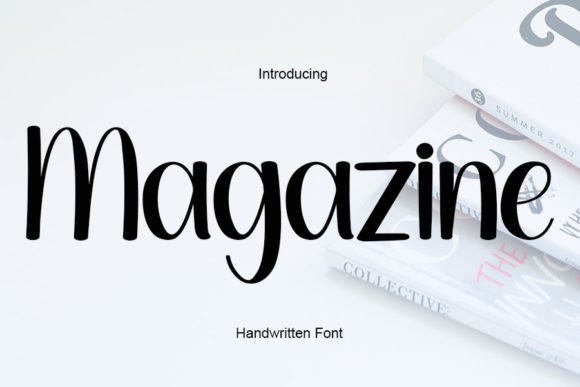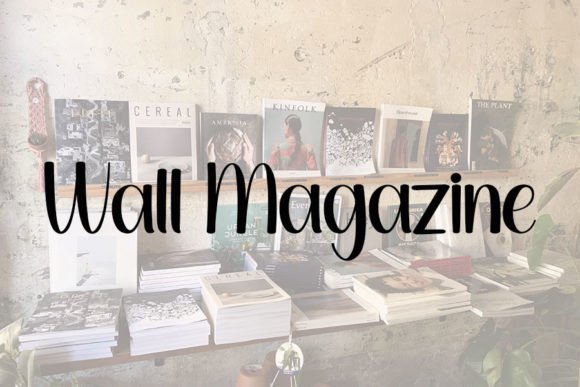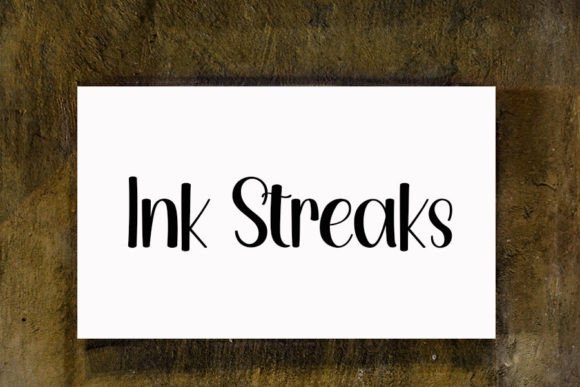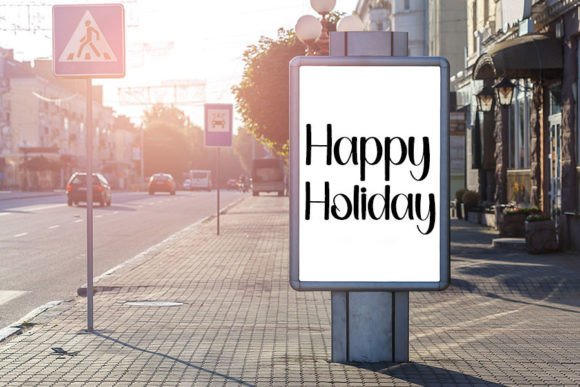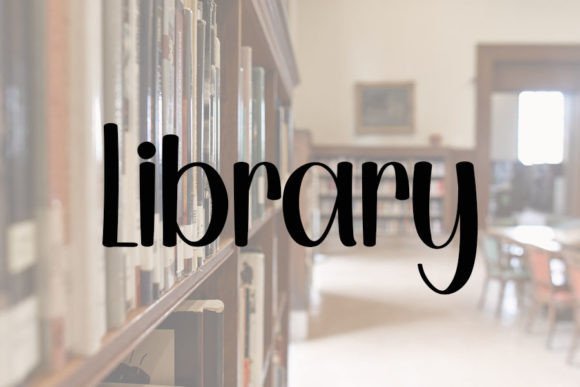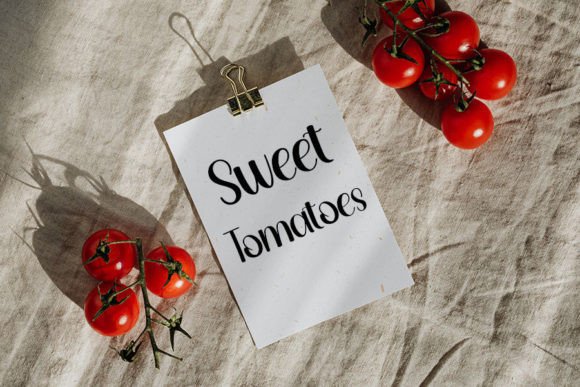
Magazine Font
About Magazine Font
Magazine font is a neat and elegant handwritten typeface crafted to bring a refined and timeless quality to your creative work. Its distinct style blends classic charm with a modern handwritten feel, making it perfect for a wide range of design projects. Whether you are designing logos, invitations, branding materials, or personal crafts, Magazine font offers the sophistication and clarity you need to make your work stand out.
Elegant and Distinct Style
This font features beautifully balanced letterforms that convey elegance without being overly formal. The natural flow of its handwritten strokes adds a personal touch, while the neat structure ensures readability. Its distinct style allows it to adapt easily to both casual and professional designs, adding a timeless flair to any project.
Versatile for Many Applications
Magazine font works well across various creative fields. Use it for magazine covers, editorial layouts, branding projects, and social media graphics to inject personality and sophistication. It is equally effective in wedding invitations, greeting cards, and packaging designs, helping your message resonate with an elegant tone.
Timeless Design for Lasting Impact
One of the font’s strengths lies in its timeless quality. It avoids fleeting trends and focuses on delivering a classic handwritten look that remains relevant and stylish. This longevity makes Magazine font a valuable asset in your design toolkit for both short-term campaigns and long-lasting branding.
Easy to Use and Read
Magazine font balances its artistic handwritten features with clarity and ease of reading. It performs beautifully in print and digital media, ensuring that your audience enjoys both the beauty and the message of your designs without any strain.
Why Choose Magazine Font?
If you want a handwritten font that combines neatness, elegance, and timelessness, Magazine font is an excellent choice. It allows you to create spectacular designs that leave a memorable impression, while giving your projects a unique and personal touch.